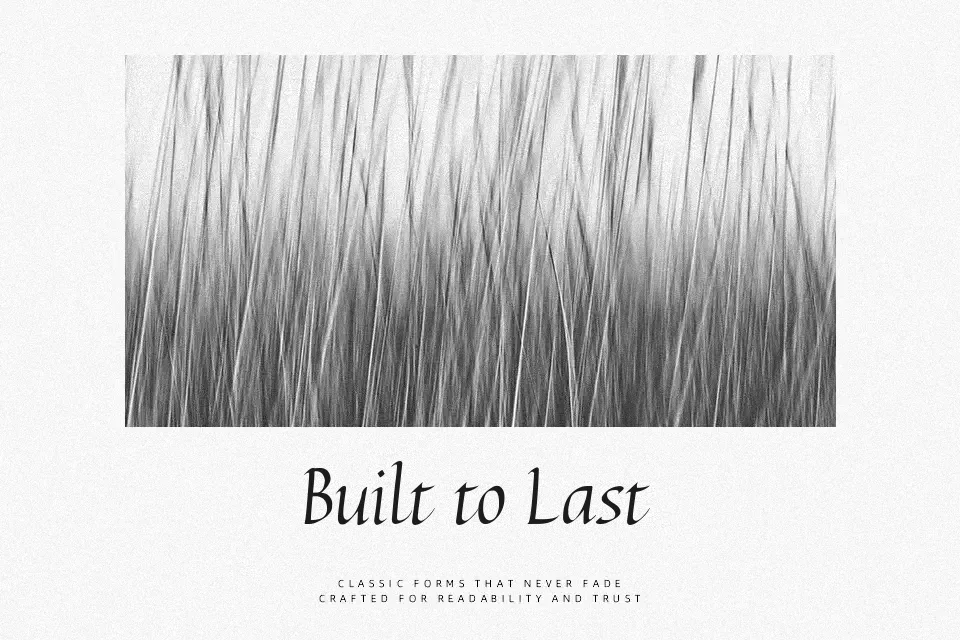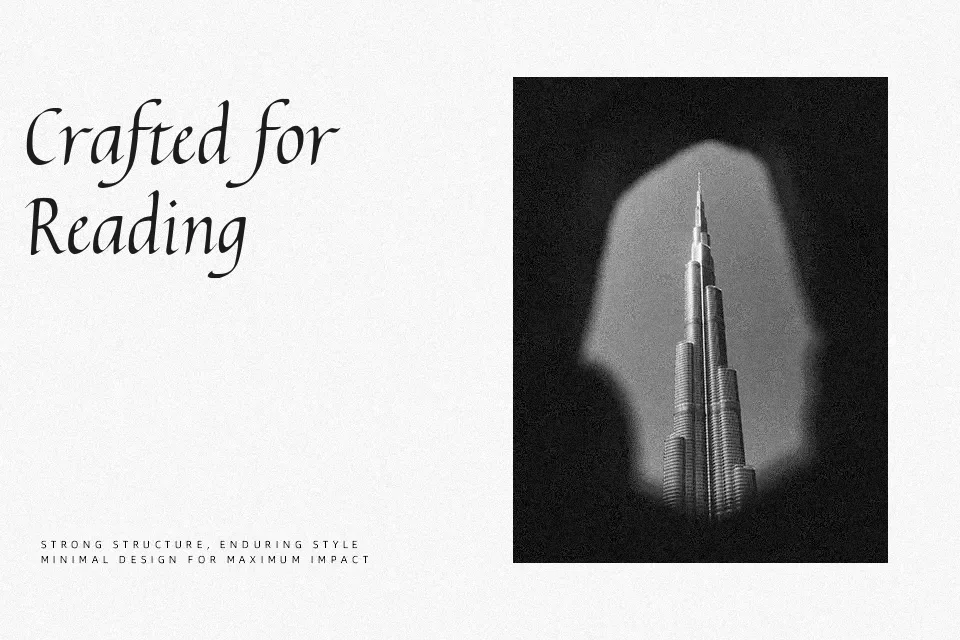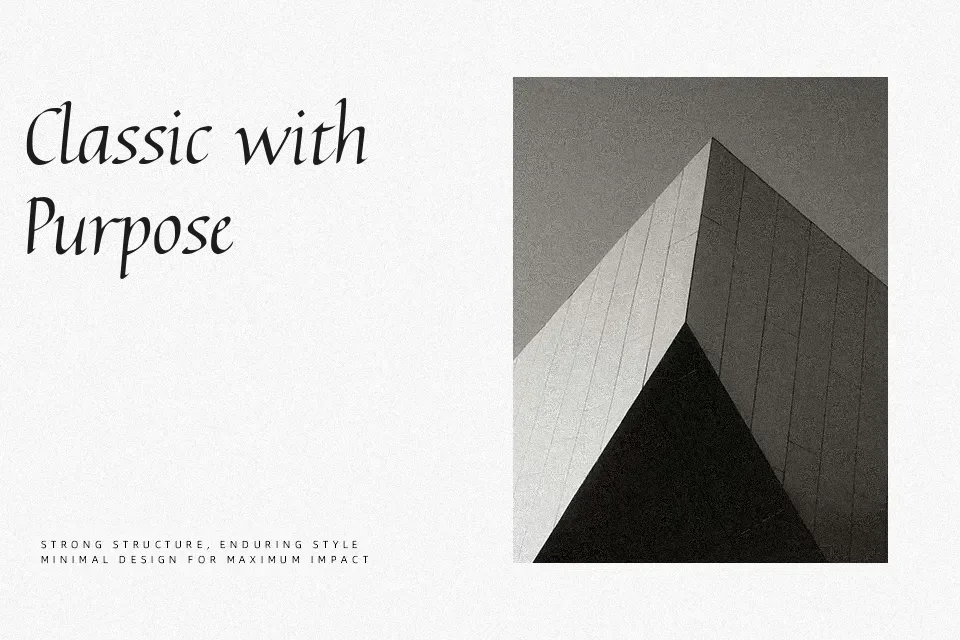
Carmenta Font
Carmenta Font combines broad-nib calligraphic ductus with sculpted serif construction, displaying distinct stroke modulation and open character spacing. The uppercase characters follow balanced Roman proportions, while the lowercase letterforms exhibit chiseled transitions and defined entry strokes that establish a dignified cadence. The generous tracking ensures comfortable decipherability in titles, editorial headlines, and thematic poster graphics. However, the delicate stroke contrasts and intricate terminal details become less legible when rendered at diminutive caption sizes. The typeface functions with exceptional clarity at display scales, though extended paragraph layouts may experience visual fatigue due to the pronounced calligraphic rhythm.
Best For: historical book covers,museum exhibition banners,artisanal product packaging,editorial title headers
Not Ideal For: continuous body text,mobile interface microcopy,spreadsheet data tables,technical manuals
Perfect for branding, editorial, and headline, with a artistic and calligraphy style.